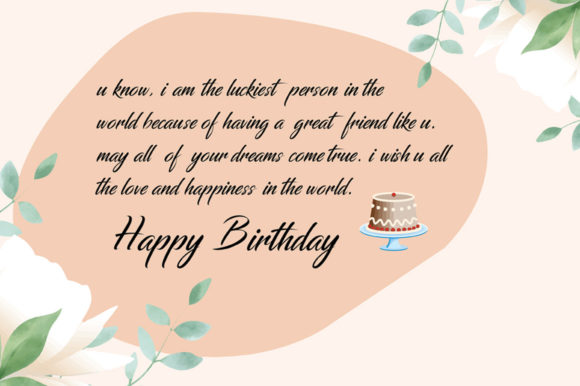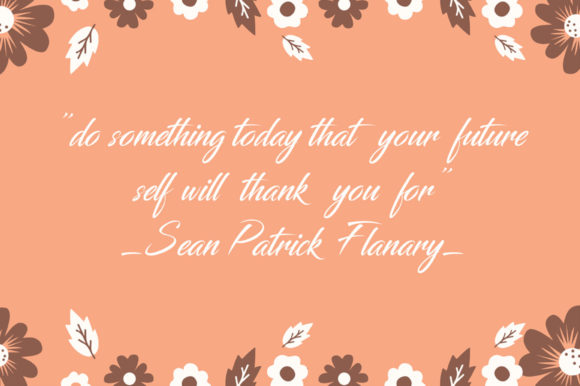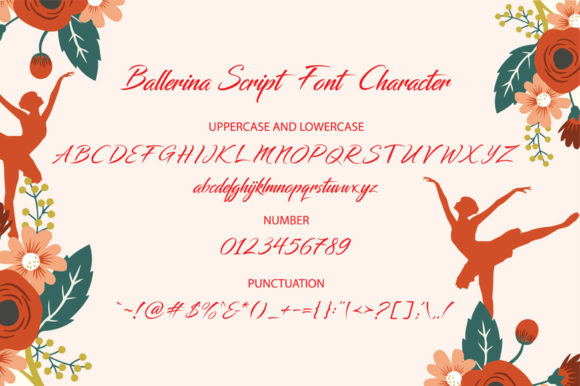
Ballerina Script Font
About Ballerina Script Font
Ballerina Script is a beautiful handwritten font, expertly designed to become a true favorite. Suitable for a wide variety of designs due to its sleek and elegant style, Ballerina Script will become your favorite font, whatever the occasion!